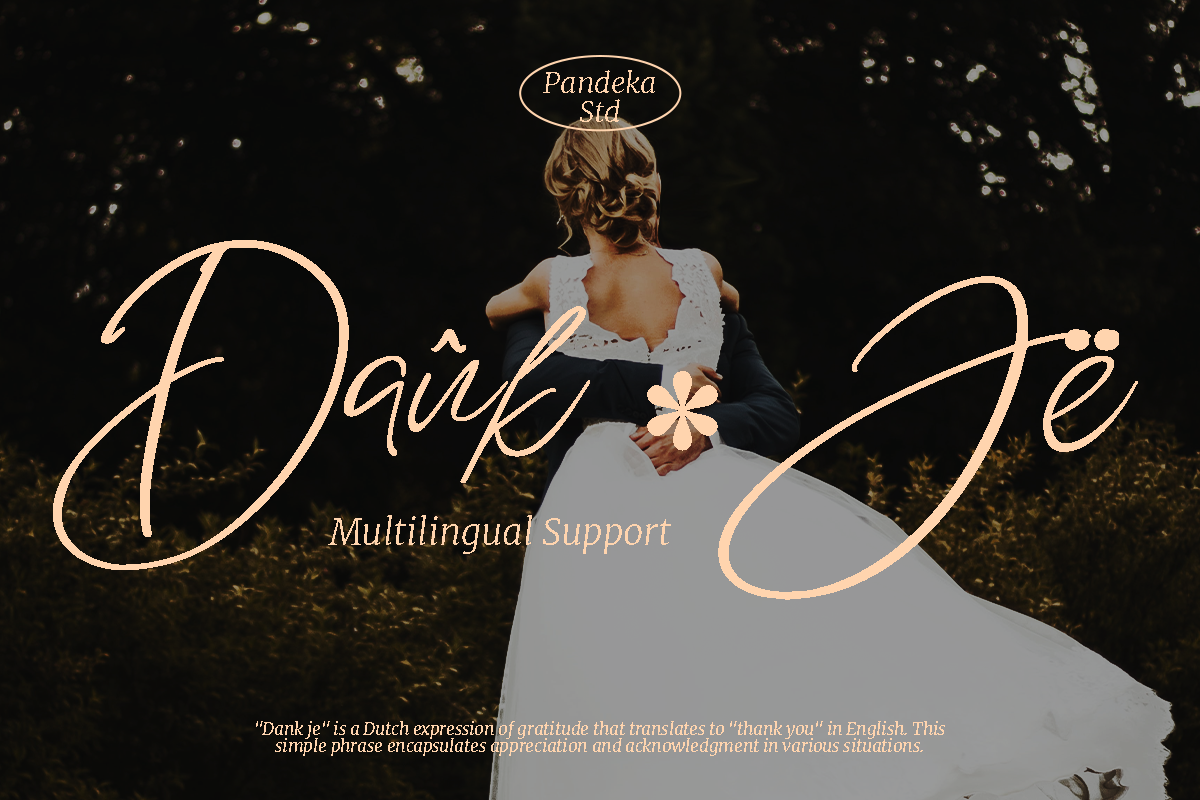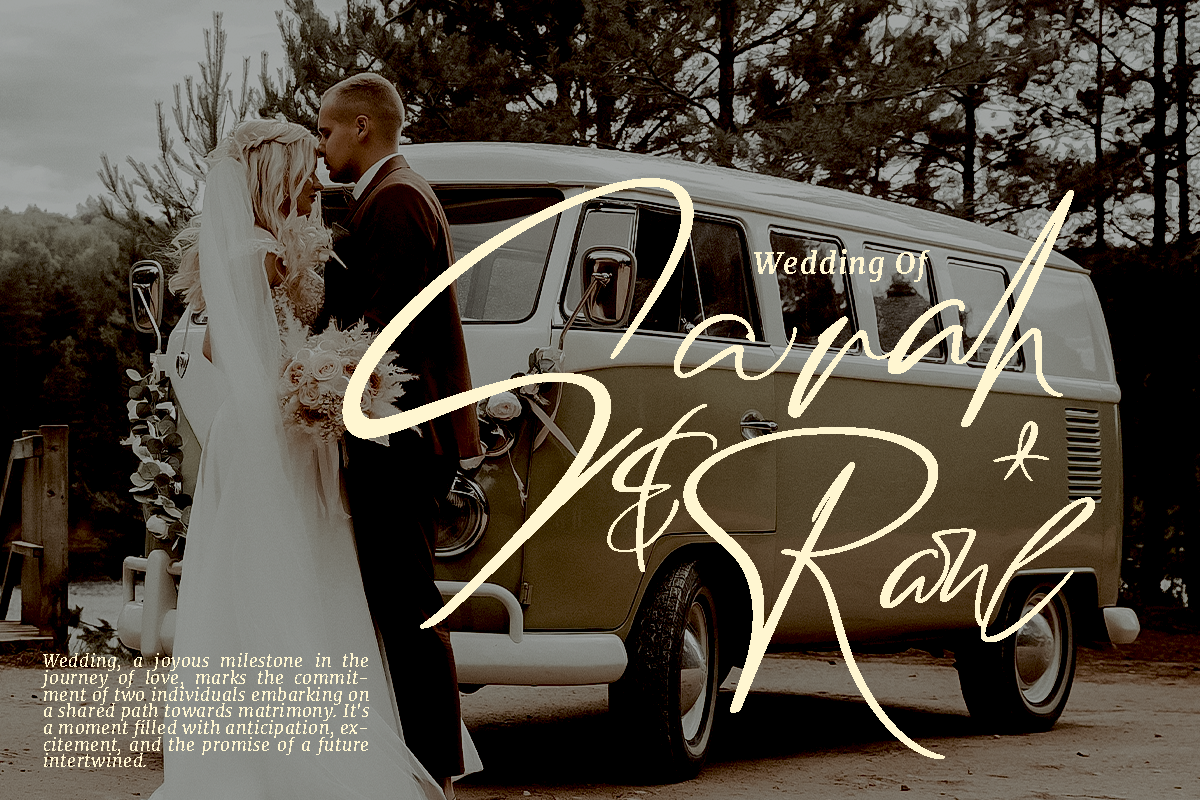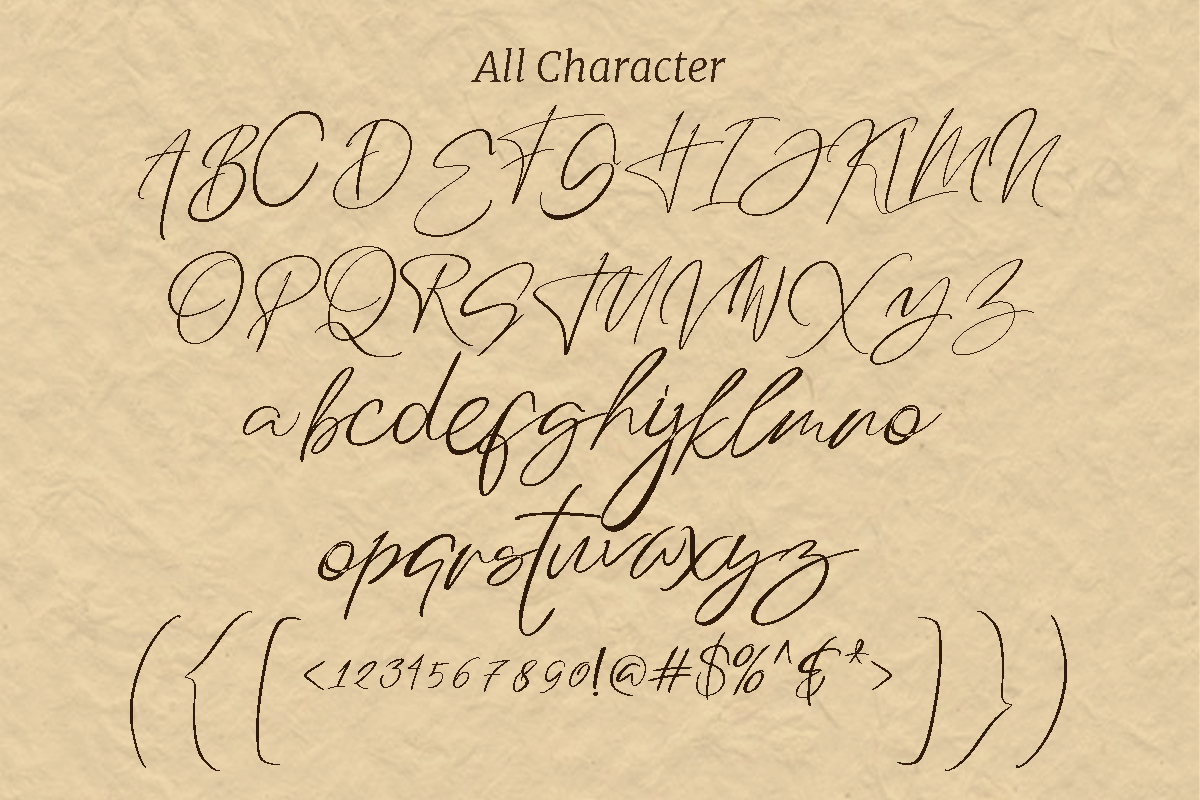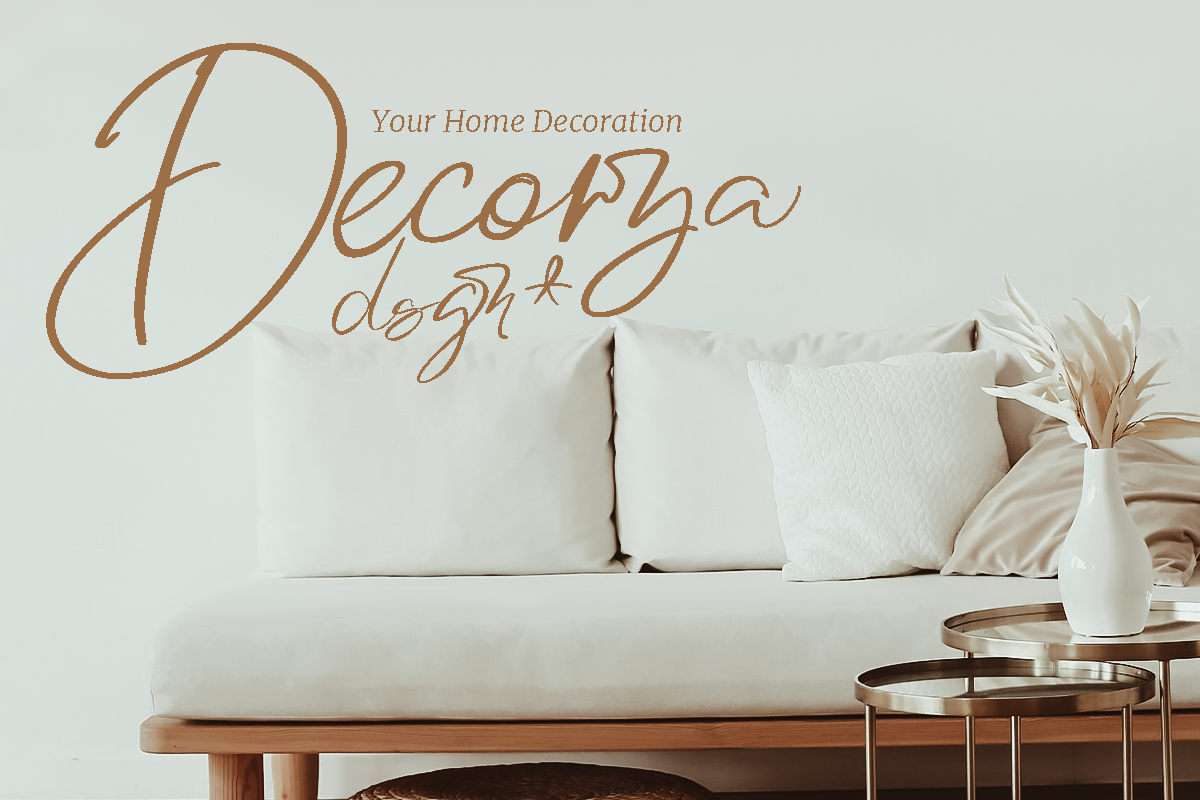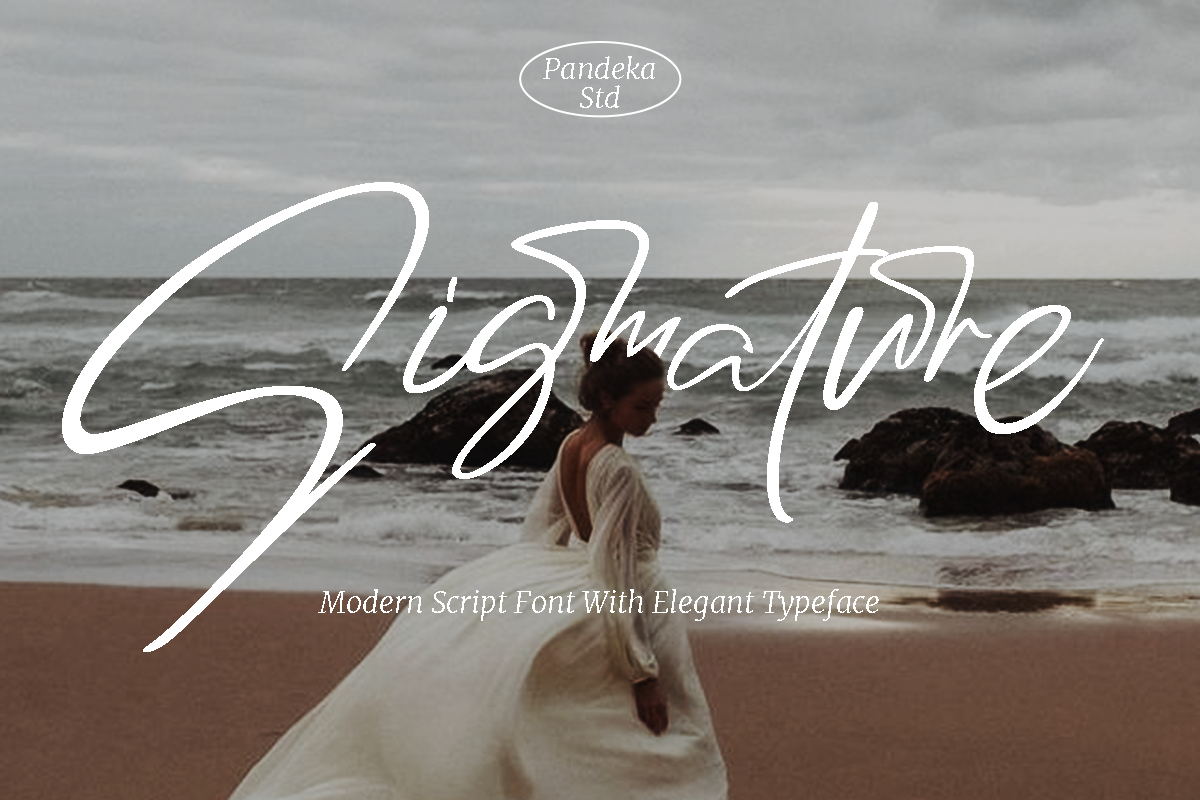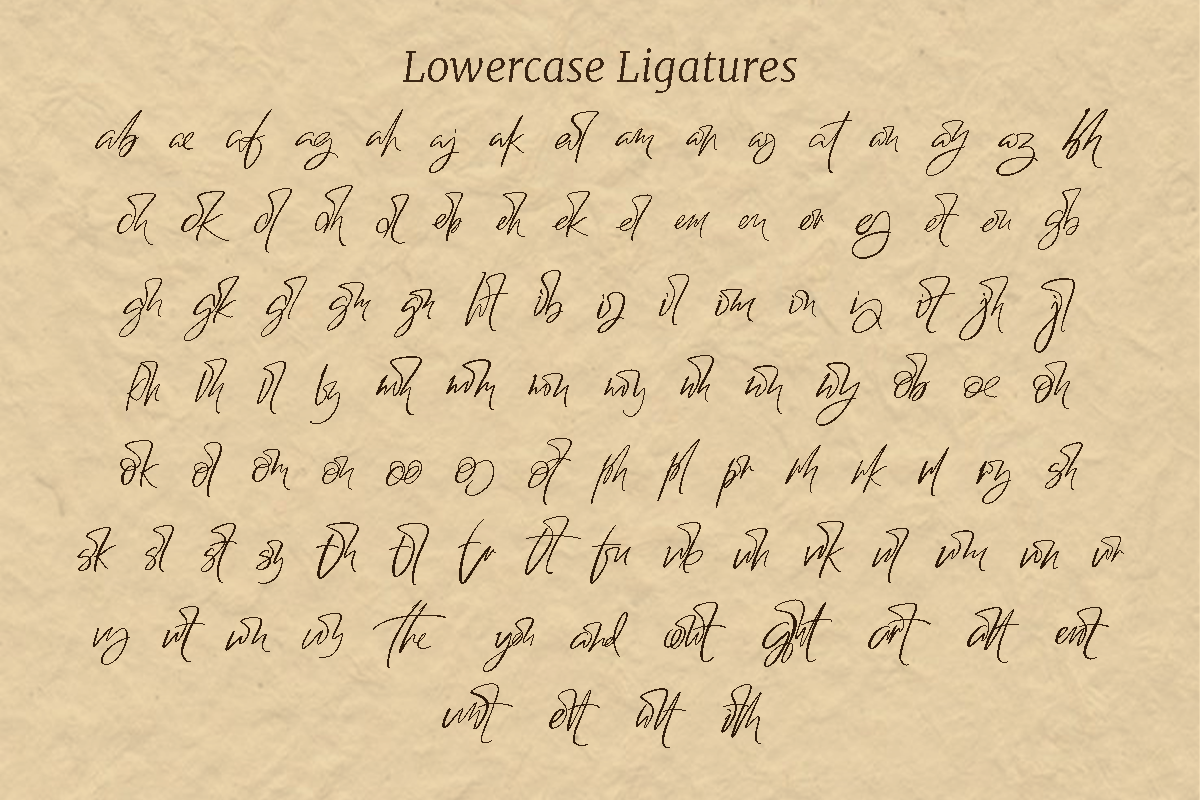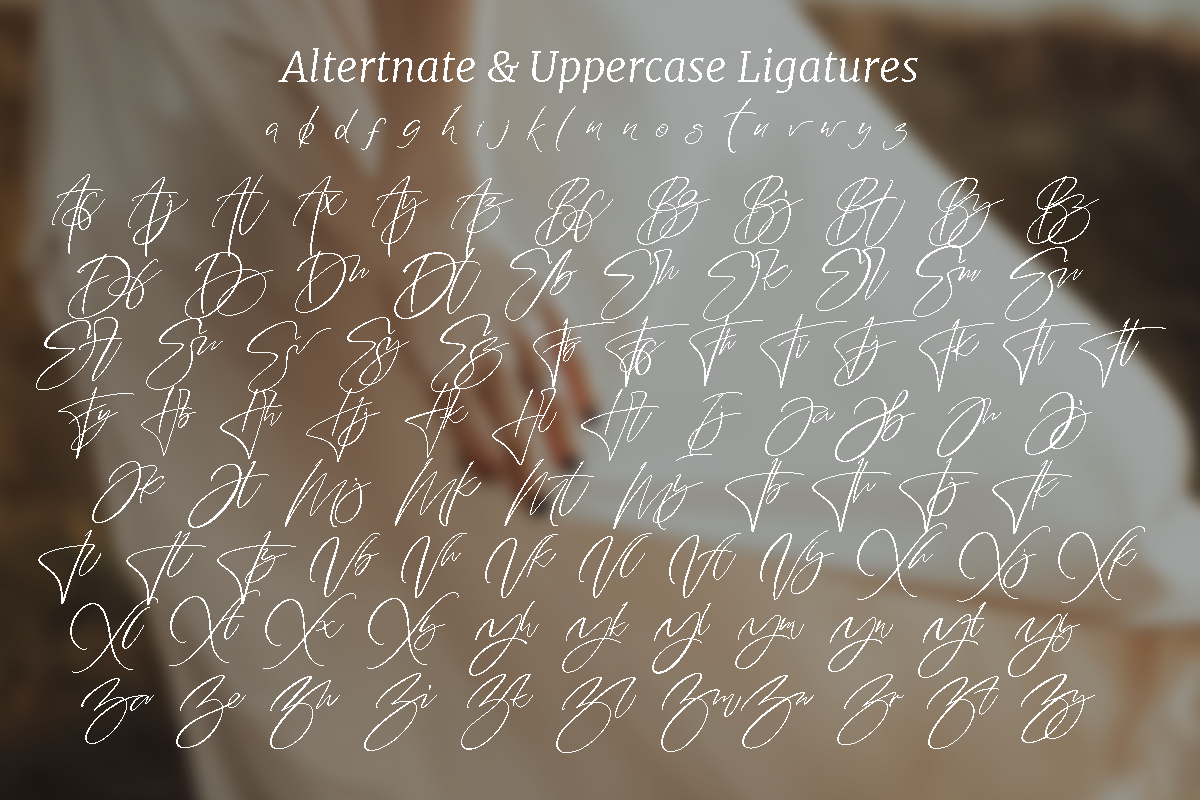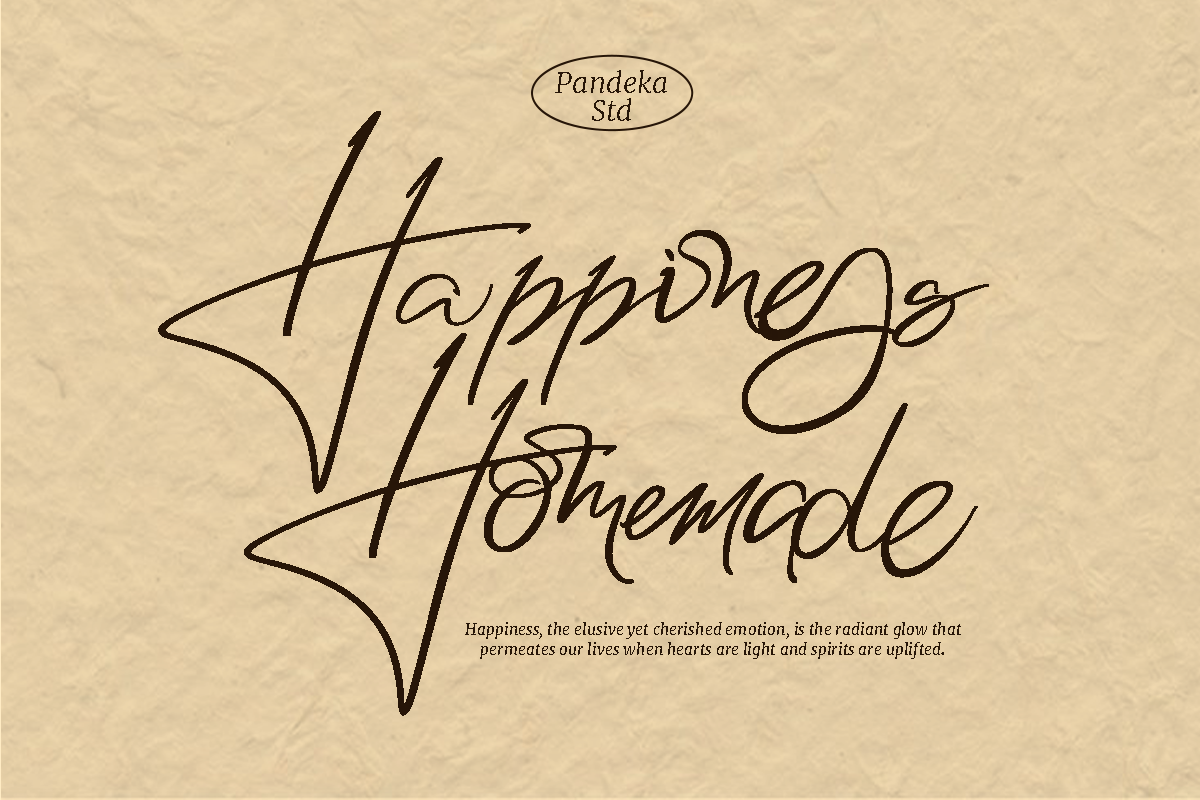
Sigmatures - Modern Script Font
Sigmatures is a handwritten signature font with a calligraphy flair, ideal for creating handwritten-style logos, wedding stationery, photographer watermarks logos, modern websites, and more.
Sigmatures features many handwritten ligatures and alternates giving realistic hand-lettered style
Featured:
- Many Ligatures and Alternates